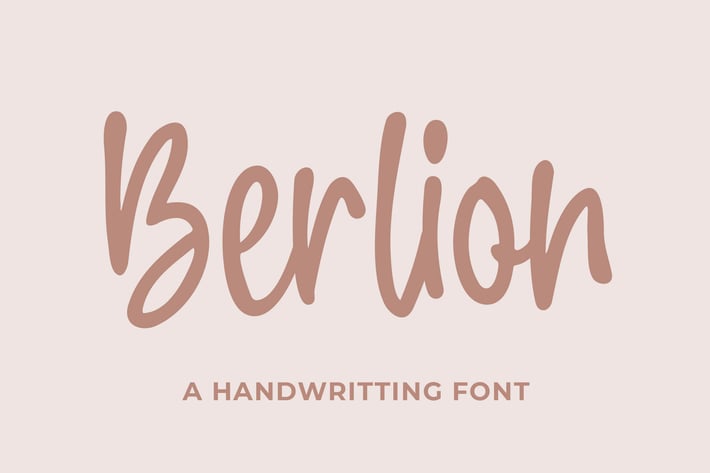
Berlion a Beauty Handwritting Business Font
Introducing of our new product the name is Berlion a Handwritting Script Font, Berlion inspired by Bouncy Calligraphy style with a fun theme very good for Logotype, kids poster, flyer, childrenbook, cartoon, comic etc